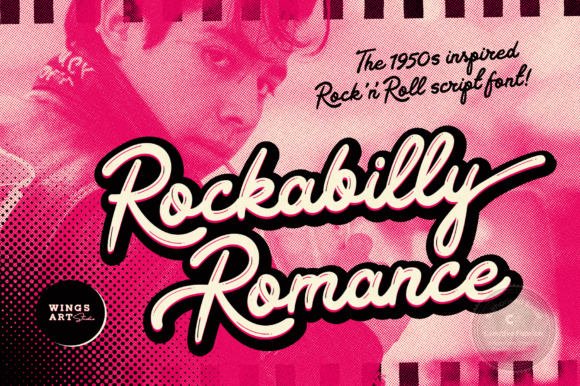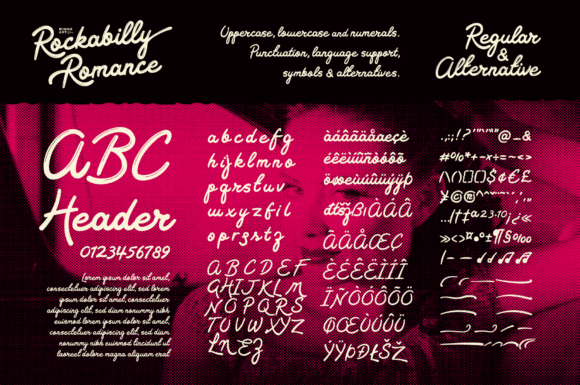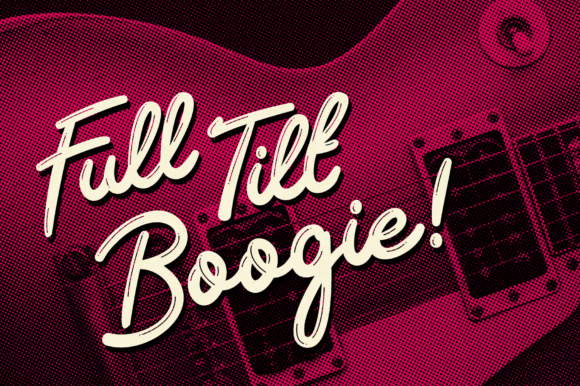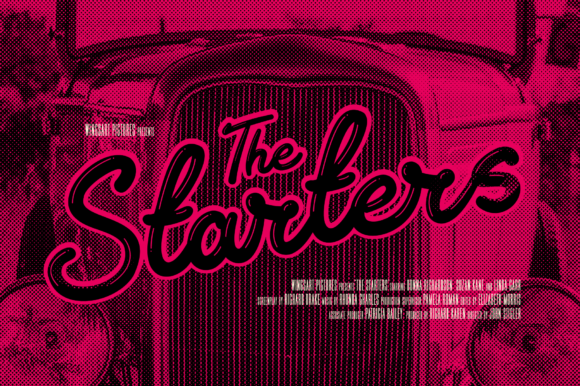
Rockabilly Romance Font
About the Rockabilly Romance Font
The Rockabilly Romance Font offers a perfect balance of form and function for your design needs. Rockabilly Romance is a rebellious script font inspired by 1950s Americana. It’s designed to evoke the feel of bustling retro diners, drive-in movies and features a Rock ’n’ Roll attitude. This font is PUA encoded which means you can access all glyphs and swashes with ease!
Rockabilly Romance thrives in applications requiring a bold, retro aesthetic. Ideal uses include short headlines, logos for vintage-inspired brands, and packaging for products targeting a nostalgic market. Its playful swashes make it perfect for posters advertising concerts or themed events. However, its decorative nature makes it unsuitable for body text or UI elements where readability is paramount. Long paragraphs set in this font would be difficult to read.
This font’s rebellious personality pairs well with contrasting styles. Consider pairing it with a clean sans-serif like Futura for a modern contrast, or a geometric sans-serif for a bolder, more graphic feel. A classic serif like Garamond could also work, providing a sophisticated counterpoint to Rockabilly Romance’s playful energy. Avoid pairing it with other highly decorative scripts, which would create visual clutter.
The overall feel is energetic and playful, yet retains a classic charm. Brands seeking to evoke a sense of fun, rebellion, and retro Americana will find this font a strong visual asset.